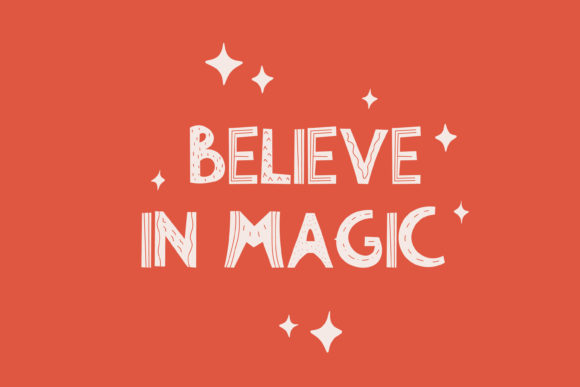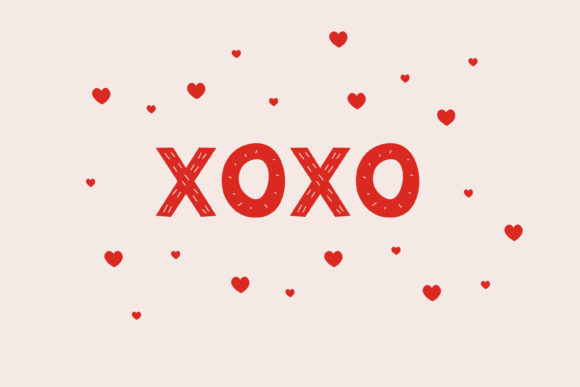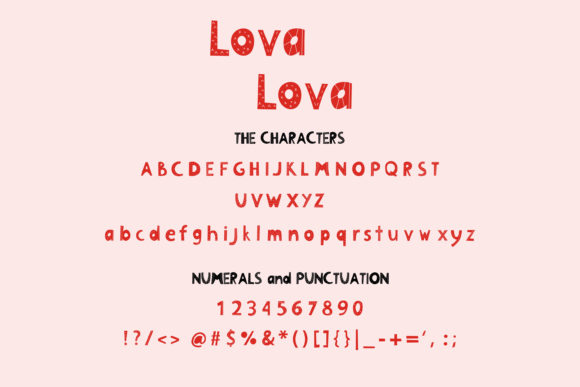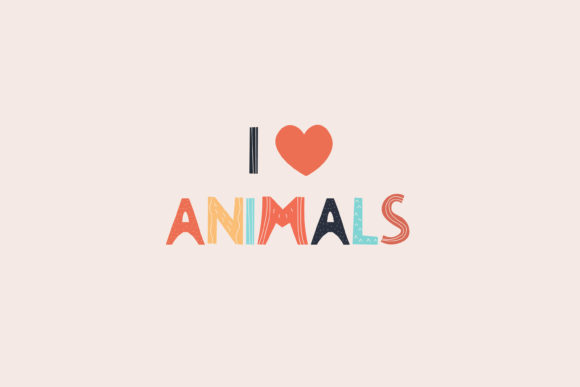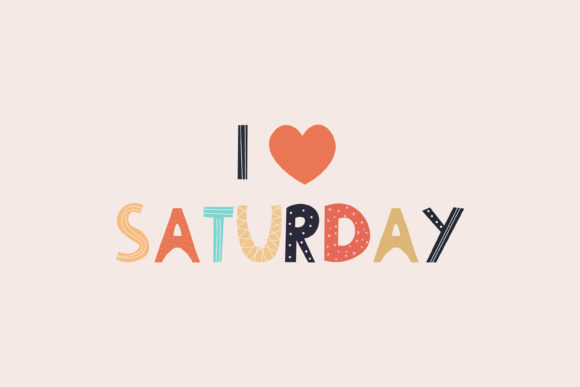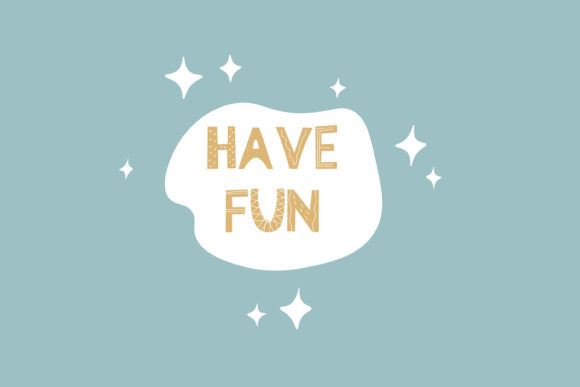
Introduction to Lova Lova Font
Have you ever found yourself in a creative frenzy, surrounded by papers, markers, and glue sticks, trying to come up with the perfect design for a birthday card or a DIY project? For designers, that moment of inspiration is what makes it all worth it. And for those who are always on the lookout for the perfect font to elevate their creative project, we’ve got some exciting news!
Meet the Lova Lova Font, a high-quality, playful, and fun decorative font that’s perfect for any occasion. Whether you’re working on a digital design, creating a presentation, or simply making a greeting card, this font has the potential to become your go-to design resource.
What sets the Lova Lova Font apart is its versatility and the fact that it’s available for a free download, making it an excellent addition to any designer’s toolkit. With its transparent background, you can easily incorporate it into any design without worrying about background clutter. Get ready to add some personality to your next creative project with the Lova Lova Font!
Key Features of Lova Lova Font
- High-quality design for creative projects: The Lova Lova Font is designed to meet the demands of high-end creative projects, offering a unique and sophisticated look.
- Perfect for design resources: This font is ideal for designers who need a reliable and versatile design resource for their projects.
- Unique characteristics: The Lova Lova Font features a distinctive and elegant design, making it stand out from other fonts in its category.
- Resolution: The font is designed to be high-resolution, ensuring that it looks great at any size or resolution.
Honest Review: Lova Lova Font
I recently had the chance to try out the Lova Lova Font, and I must say it’s been a delightful addition to my design toolbox. The font is available as a free download, which is always a plus for designers on a budget.
One of the things that stands out about the Lova Lova Font is its high quality. The font is well-designed, with clean lines and a unique aesthetic that makes it perfect for creative projects. I particularly love how versatile it is – it works well for both digital and print projects.
- ✨ Transparent background makes it easy to use in design projects
- ⚠️ Limited customization options, which may not be ideal for designers who like to tweak their fonts
- ⚠️ Not suitable for projects that require a lot of bold or italic text
Overall, I’m really impressed with the Lova Lova Font. It’s a great design resource that’s perfect for designers who are looking for a high-quality, unique font for their creative projects. While it may have some limitations, I think it’s definitely worth checking out.
The Lova Lova Font is a high-quality design resource that can be used in a variety of creative projects, such as logos, posters, and social media graphics. Its transparent background makes it ideal for use on images and videos. The font is also free to download, making it a great resource for designers on a budget.